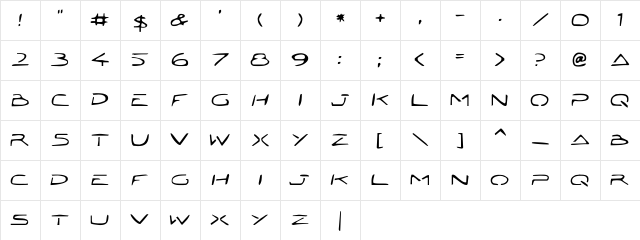
Jetta Tech Regular Free Font
Jetta Tech Regular
Design Context for Jetta Tech
Jetta Tech has a distinctly futuristic character, with geometric precision and clean angles that feel at home in technology, gaming, and sci-fi contexts.